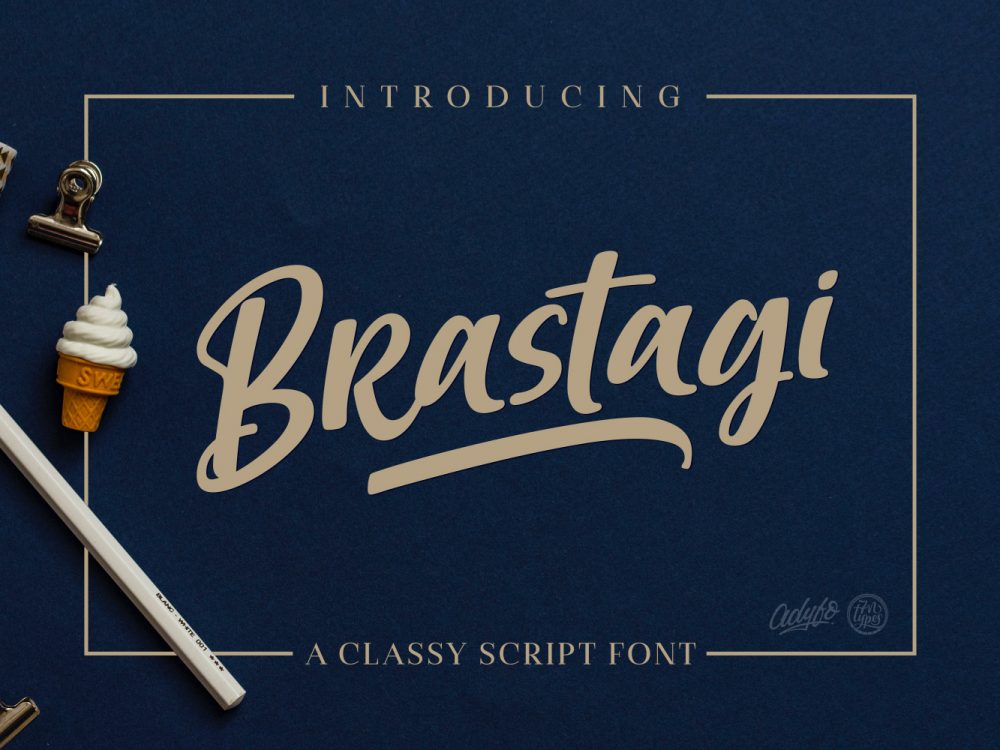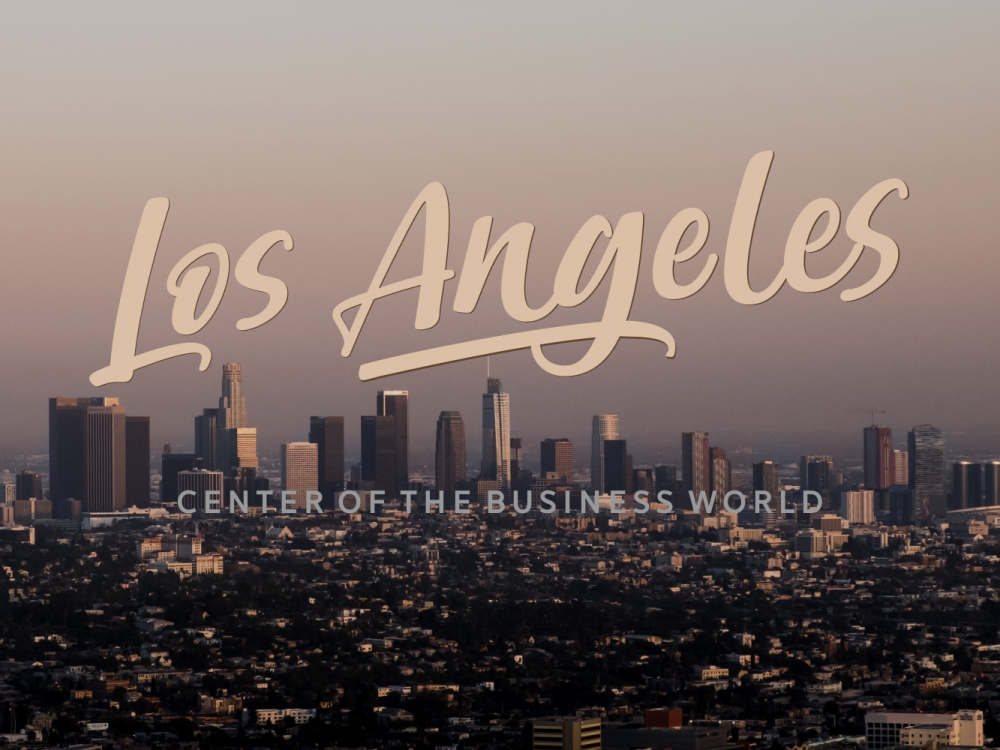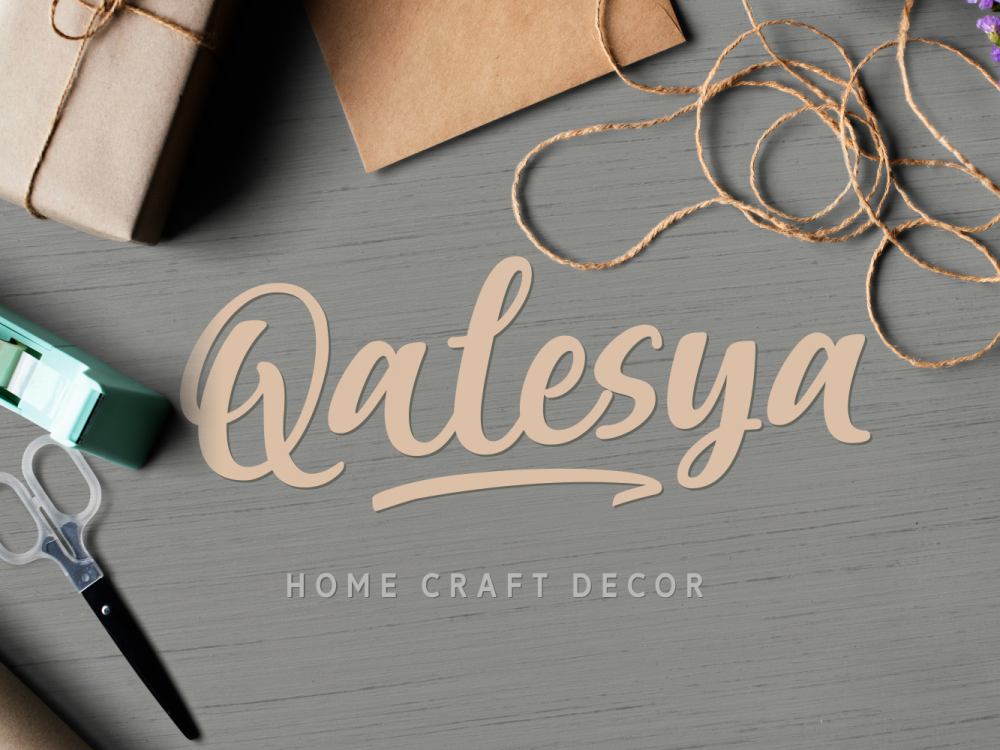
Brastagi Handlettering Font Demo
Brastagi Handlettering Font Demo is a stylish modern script font that will help to add uniqueness to any of your design projects. You can use this font to create posters, cards, invitations, flyers, prints, and more. If you wish to use it for commercial work please buy the full version.
Author: 7NTypes